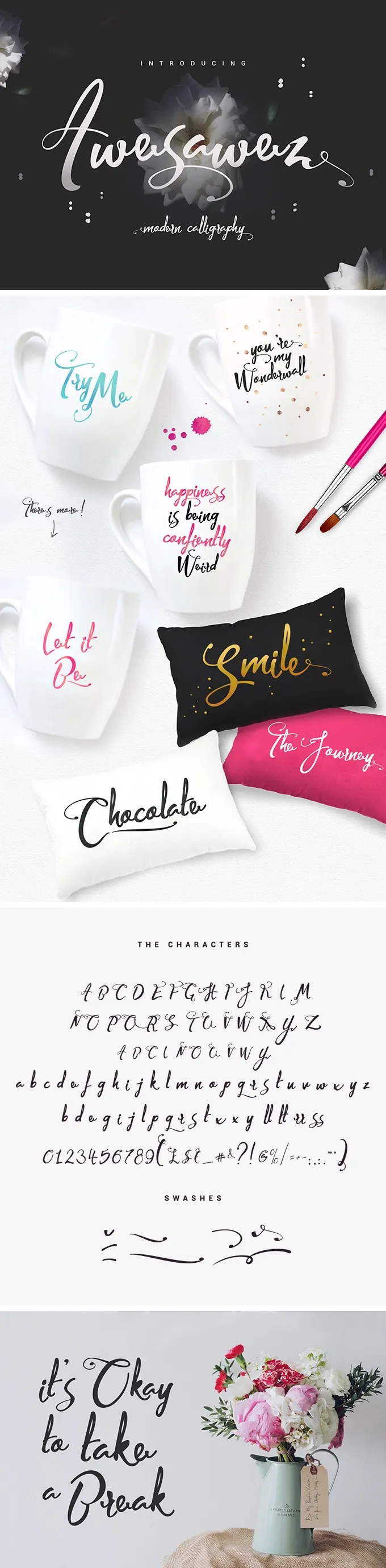
Awesawez Script Font
It's a playful yet elegant hand script typeface with extra bouncy curves and loops! The brand new Awesawez font is The brandbeautiful hand-made typography with heart and soul.
This font has everything you need: it comes with a comprehensive set of alternates, allowing you to create even more authentic custom-feel lettering. Digital calligraphy for your branding, logos, web design projects and apparel ideas is closer, than you may think at first!